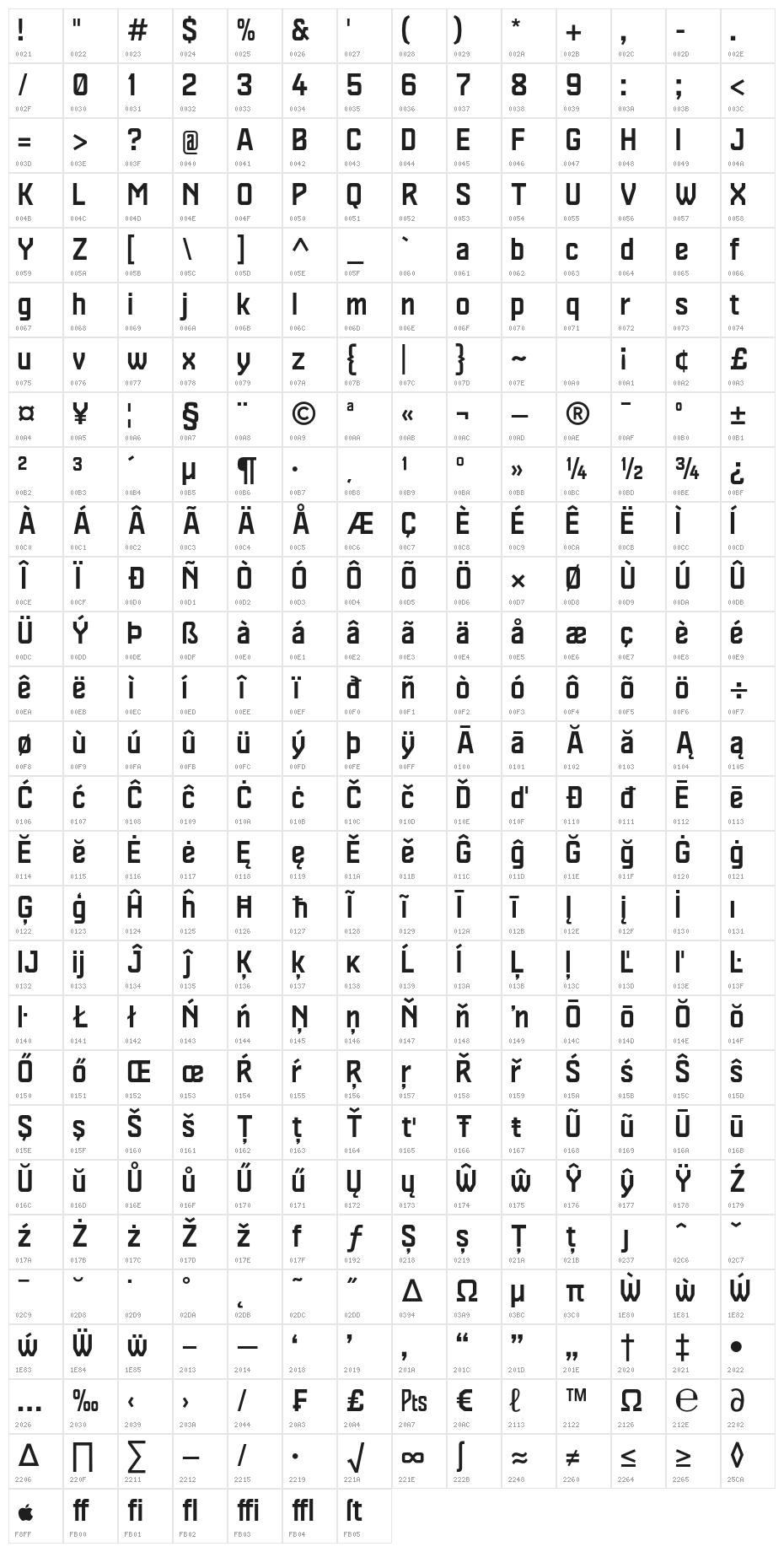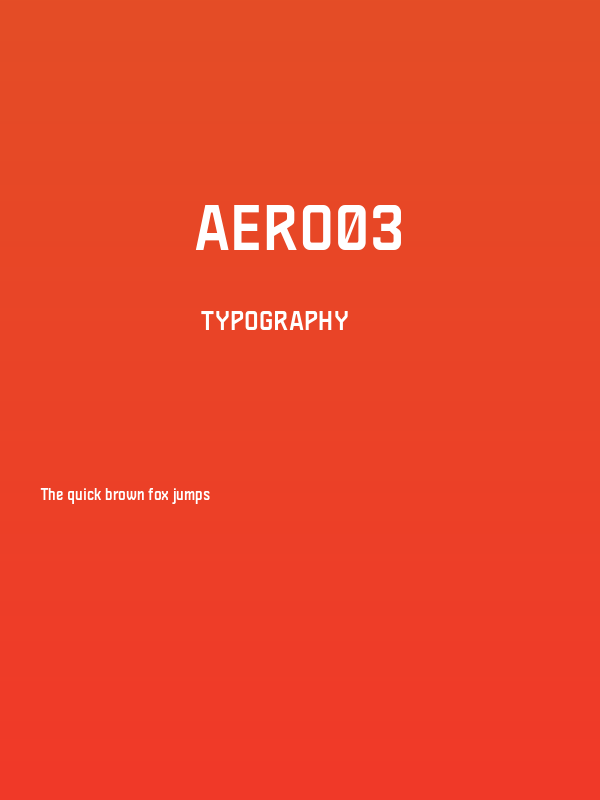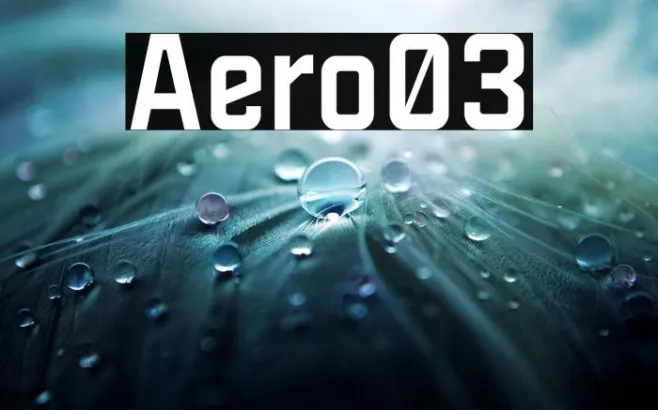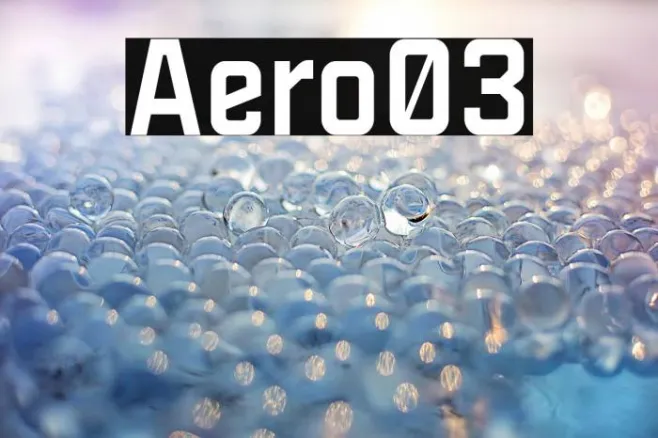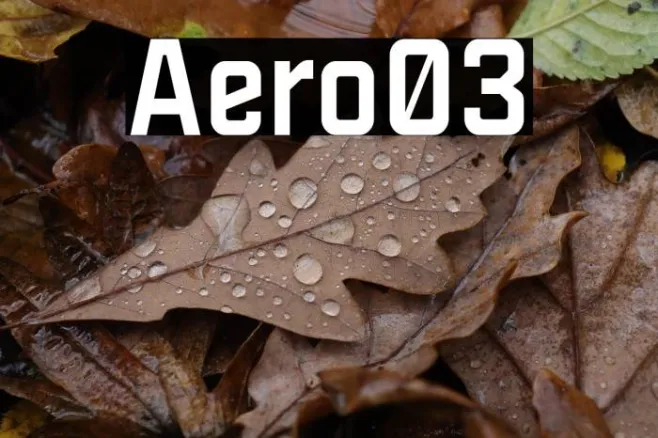
Aero03 Font
Aero03 Description
This font features a bold and modern sans-serif design with a geometric structure. The uppercase letters are tall and slightly condensed, giving a strong and assertive appearance. The lowercase letters maintain a consistent height, contributing to a clean and uniform look. The numerals are clear and legible, with a similar geometric style that complements the alphabet. Special characters are designed to match the overall aesthetic, ensuring cohesion across all elements. The font's simplicity and clarity make it suitable for various applications, from digital interfaces to print media.
| Use Case | Headlines, Logos, Digital Interfaces |
| Proposed Projects | Ideal for branding, digital interfaces, posters, and signage where clarity and modernity are key. |